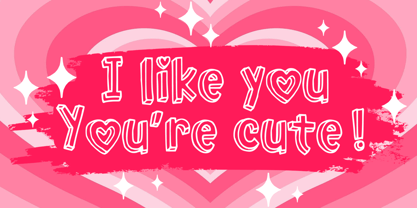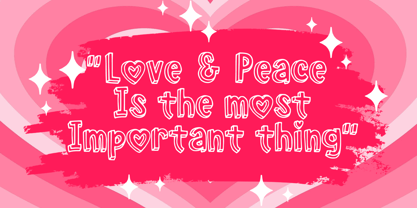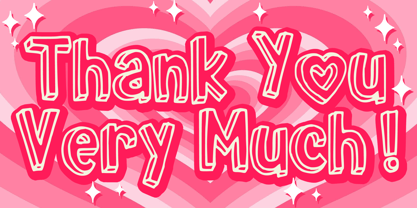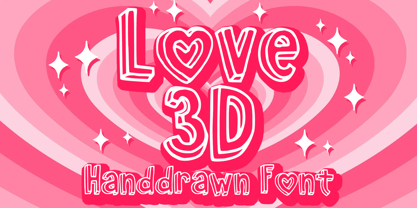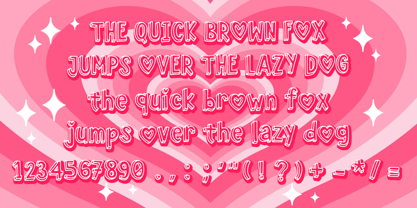
Love 3 d
por Mvmet
La familia tipográfica Love 3 d fue diseñada por Gabriel Valentinus y publicada por Mvmet. Love 3 d contiene 1 estilos.
Love 3D is a fun and playful handdrawn font. You can use it for anything ranging from t-shirts, book designs, packaging and greeting cards to stickers and posters, or anything that needs a casual touch. If you want to use it for Valentine or other lovely themed designs, it will be your perfect font to pick. Fall in love with its incredibly versatile style, and use it to create lovely designs!
Diseñadores: Gabriel Valentinus
Editorial: Mvmet
Fundición: Mvmet